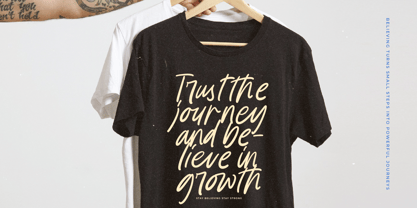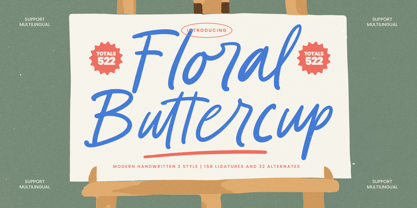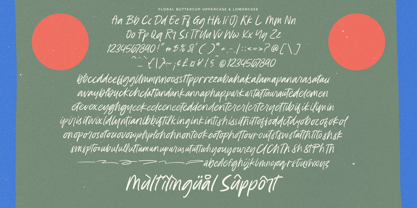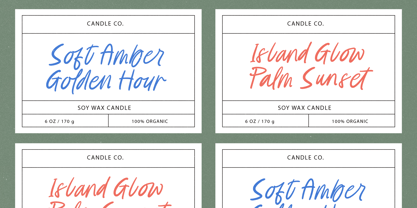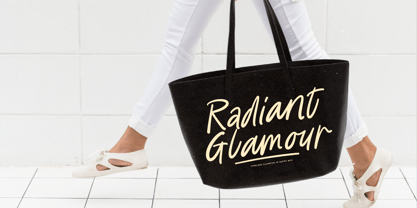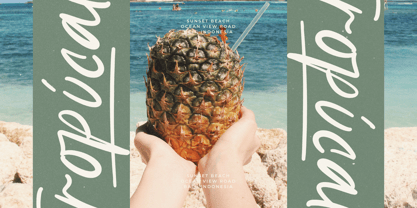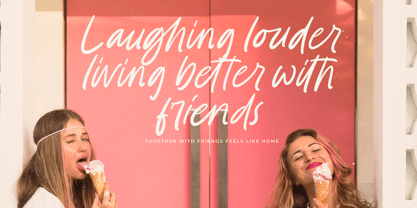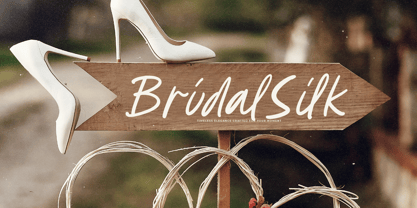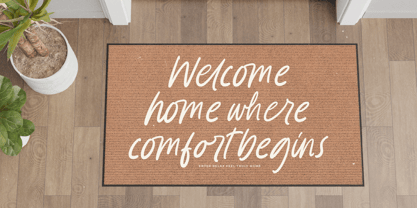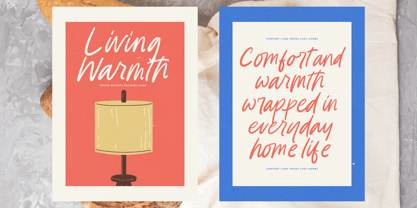
Floral Buttercup
by Stylishtype Studio
The Floral Buttercup Font Family was designed by Heru Utama Putra and published by Stylishtype Studio. Floral Buttercup contains 2 styles and family package options. More about this family
Floral Buttercup is a modern handwritten script designed with smooth strokes, expressive curves, and an effortless natural flow. Featuring 522 total glyphs, 158 ligatures, and 32 stylistic alternates, this typeface offers exceptional versatility for logos, packaging, invitations, social media branding, and creative editorial layouts. With two dynamic styles and full multilingual support, Floral Buttercup brings a fresh handwritten charm that elevates any visual identity with warmth and personality.